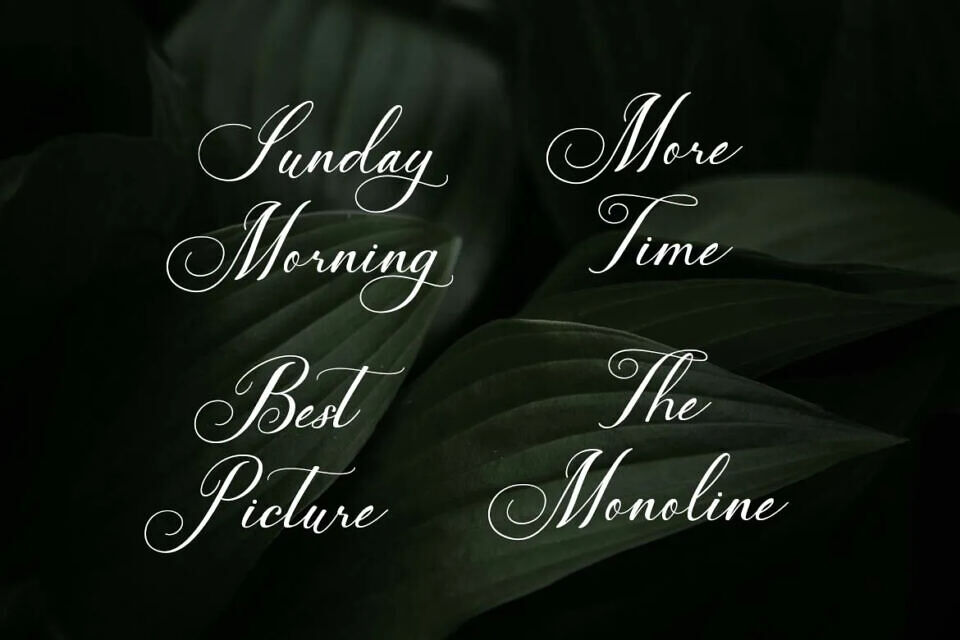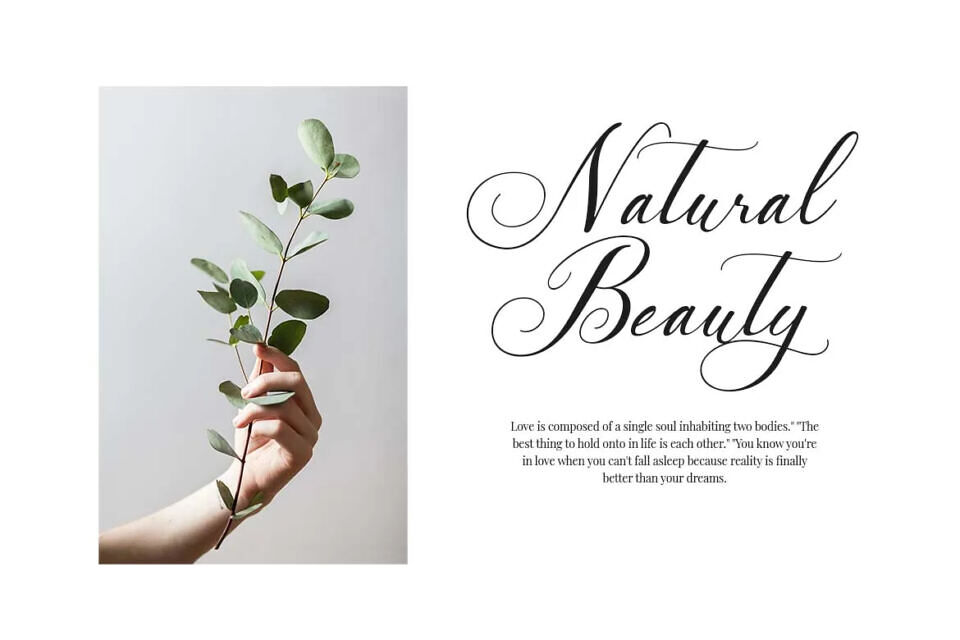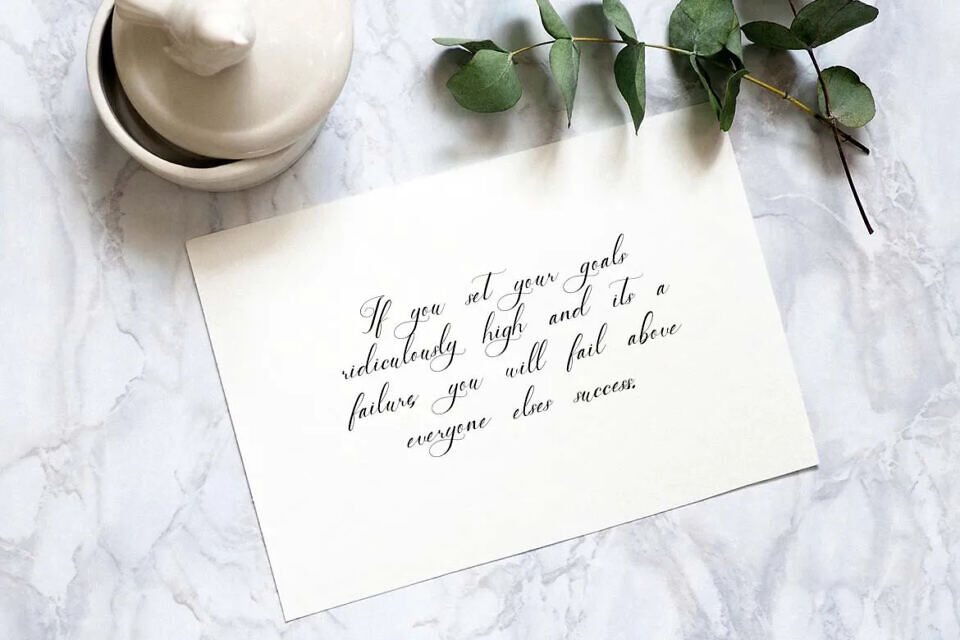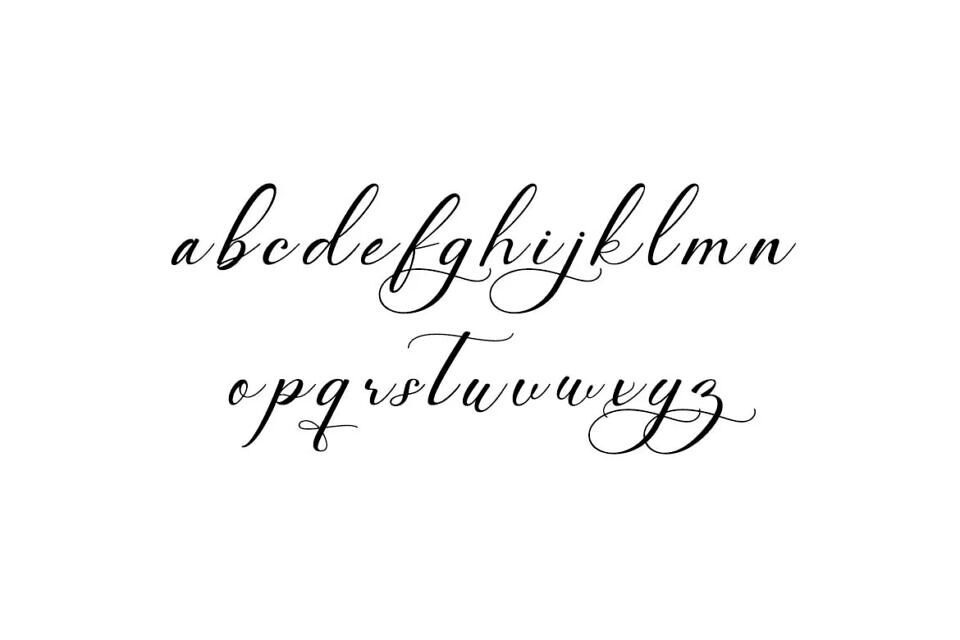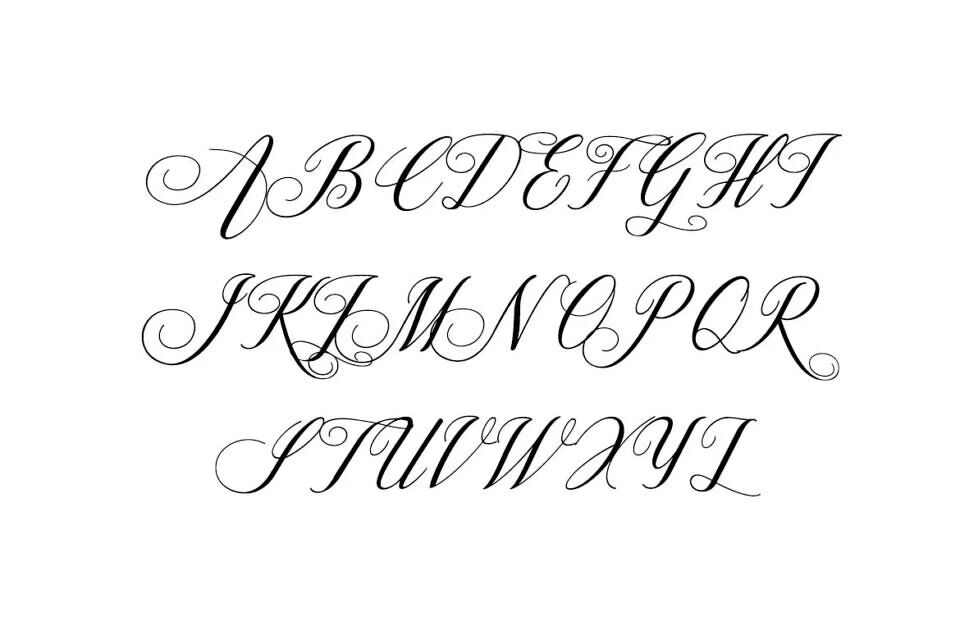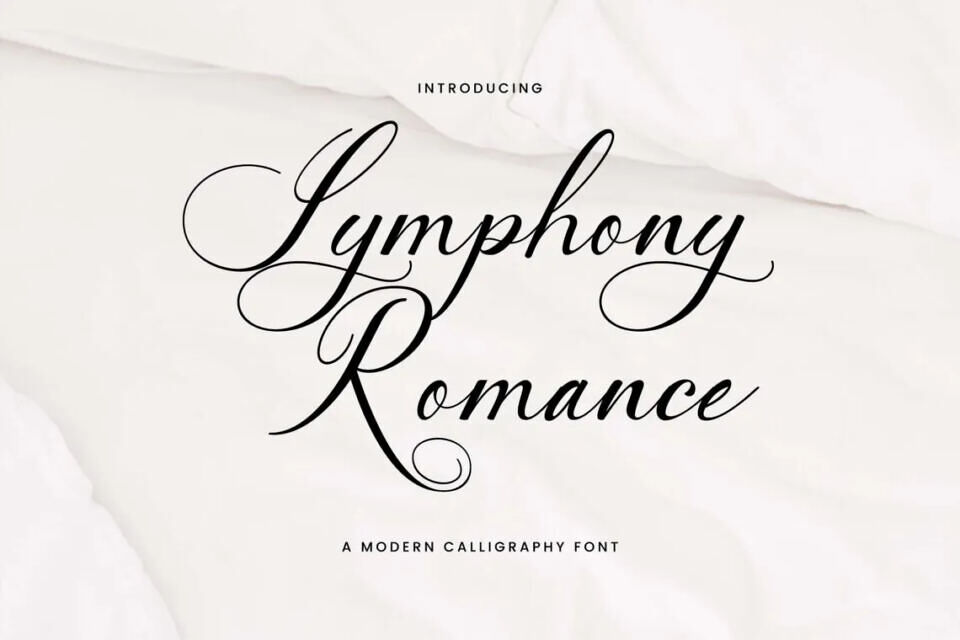
Symphony Romance Font
The Symphony Romance font exudes elegance and style with its modern calligraphy design. Perfect for various projects, it adds a touch of class to signatures, stationery, logos, and more. Its versatility suits both masculine and feminine themes, making it ideal for fashion branding, editorial design, and other applications where a sophisticated look is desired.